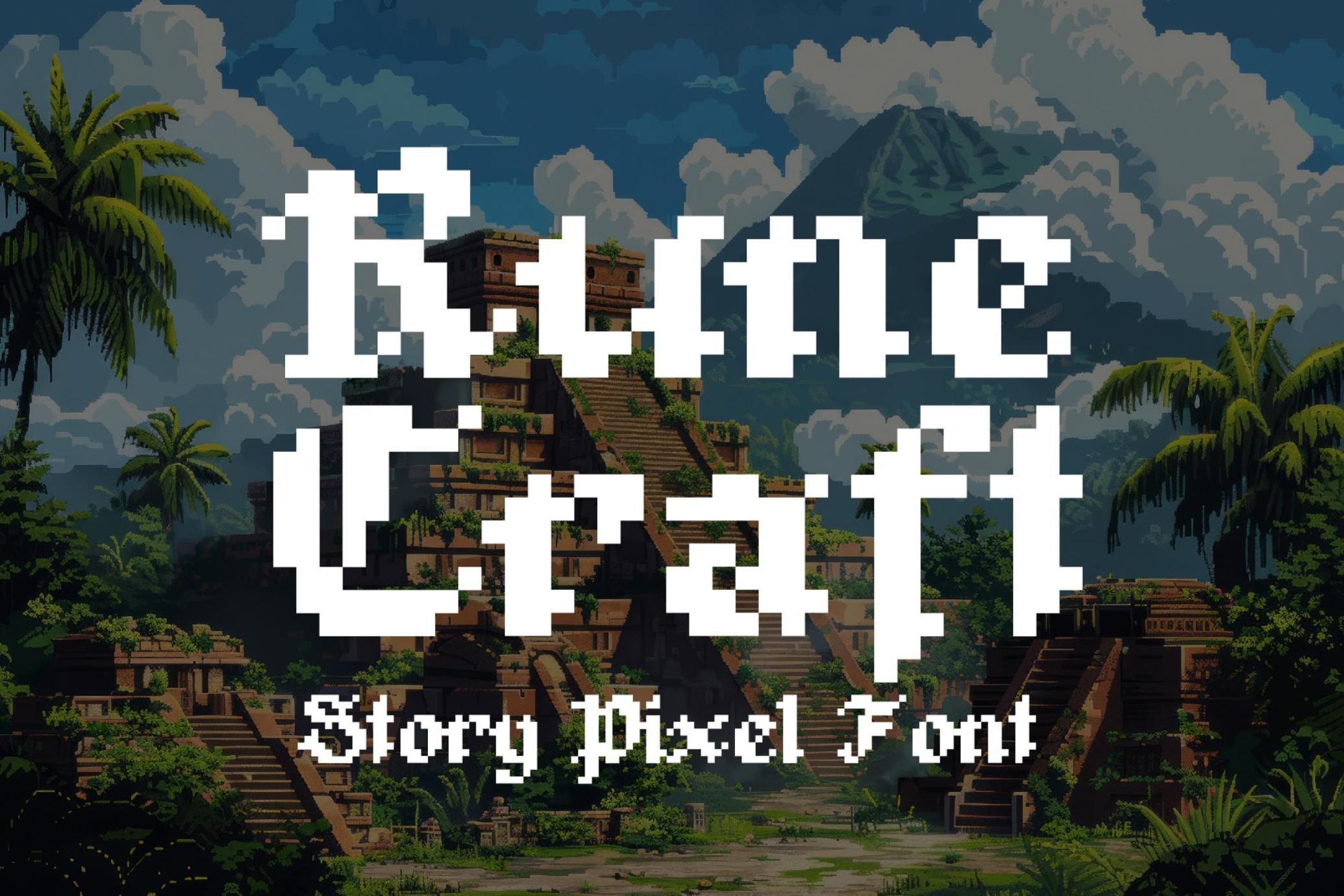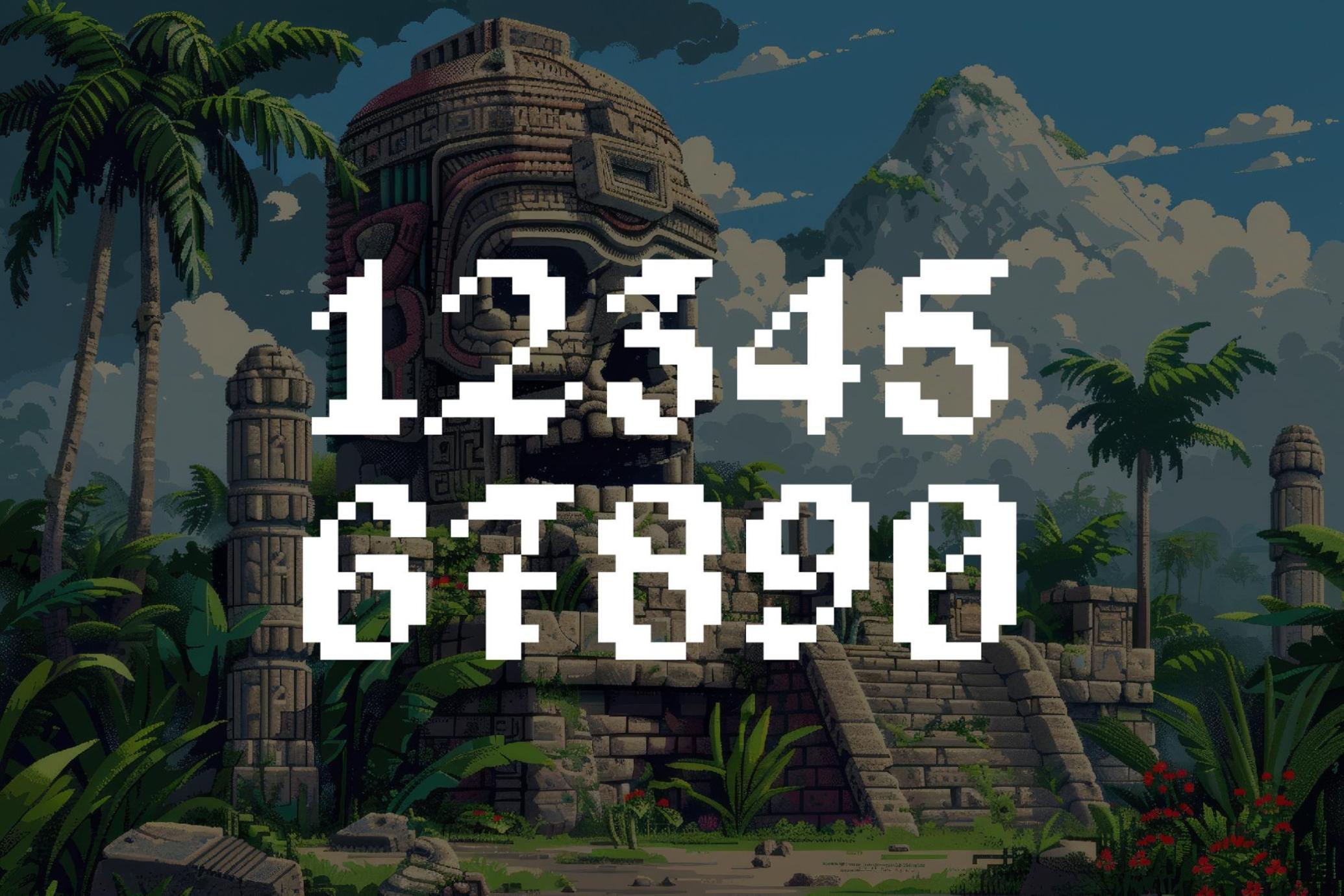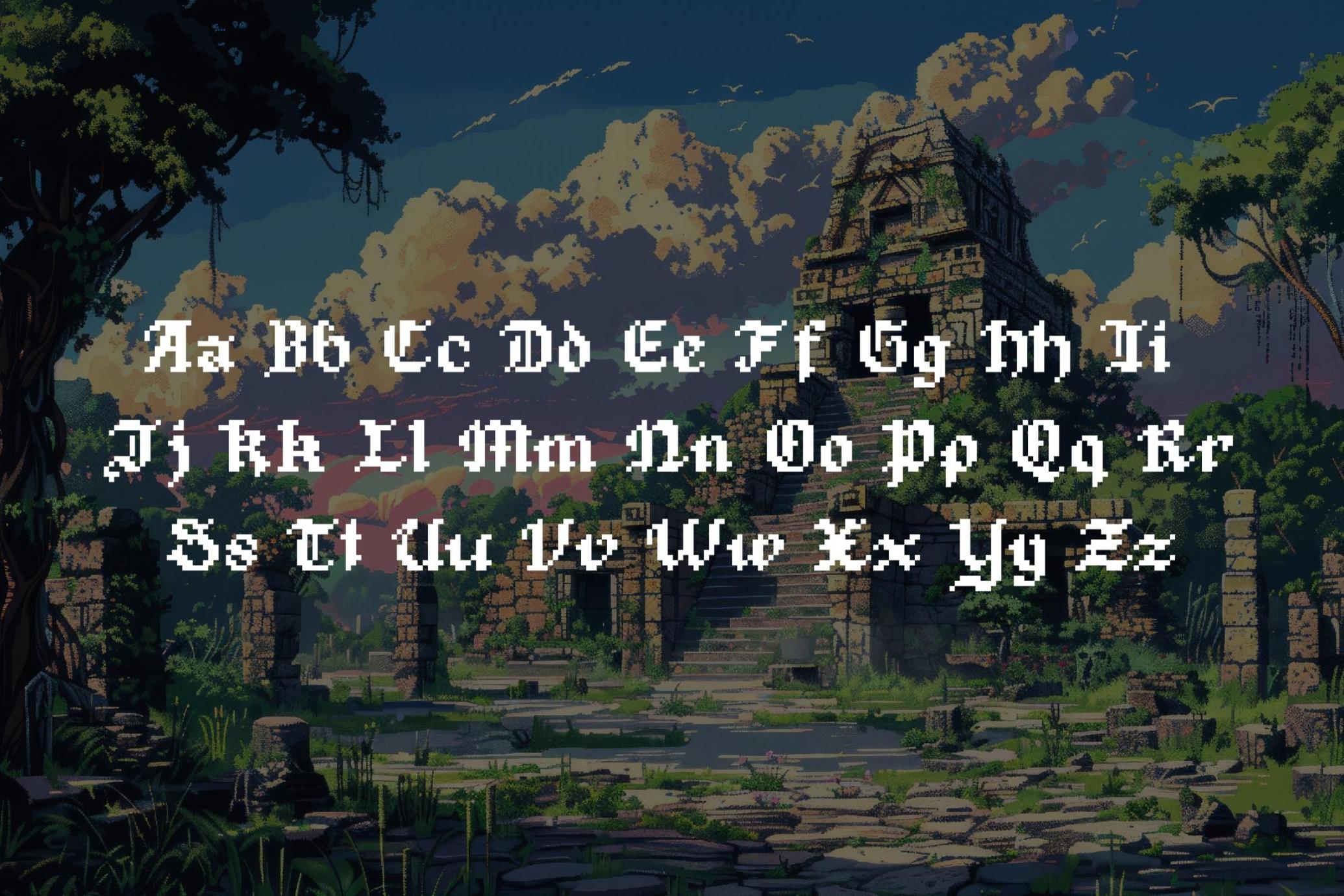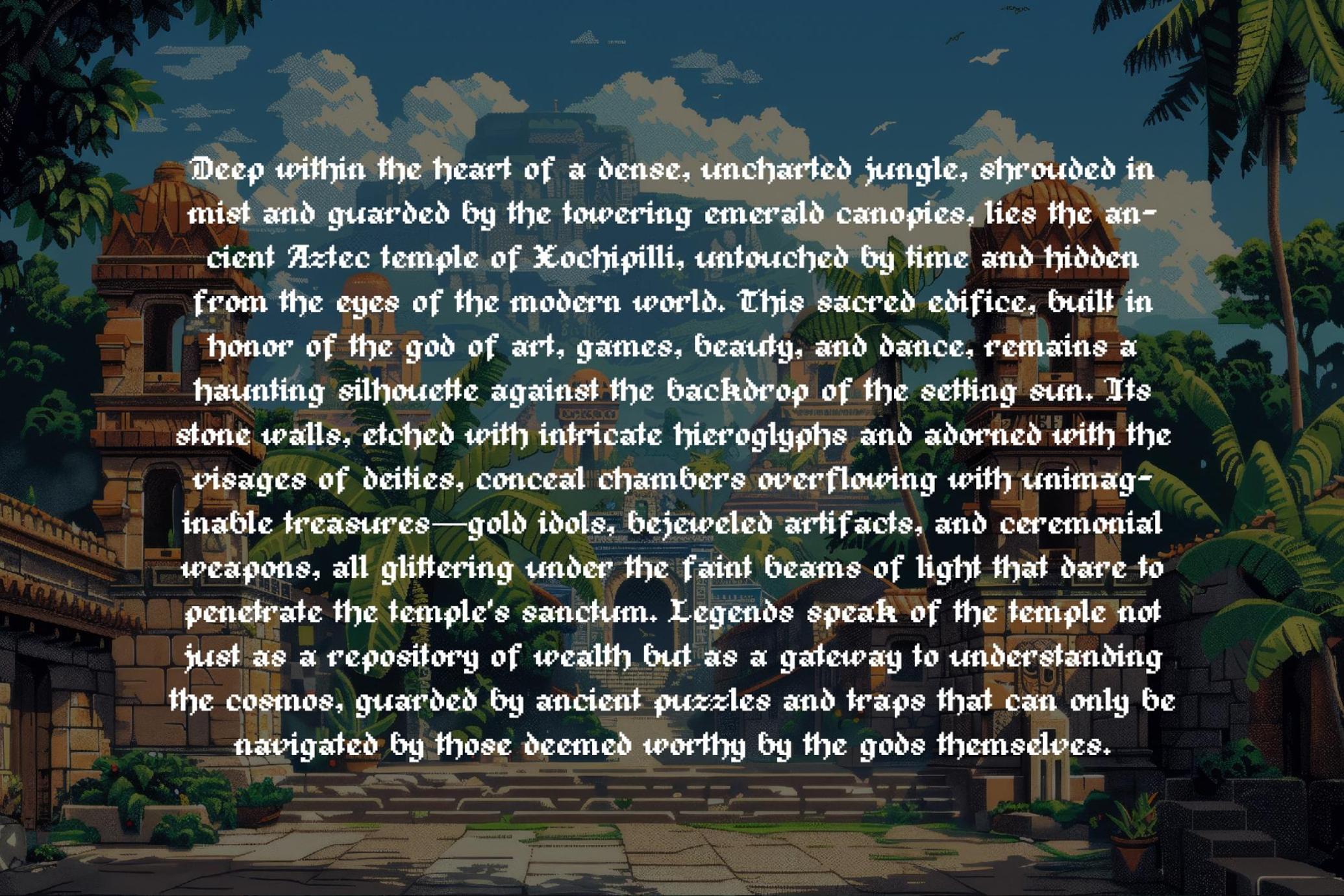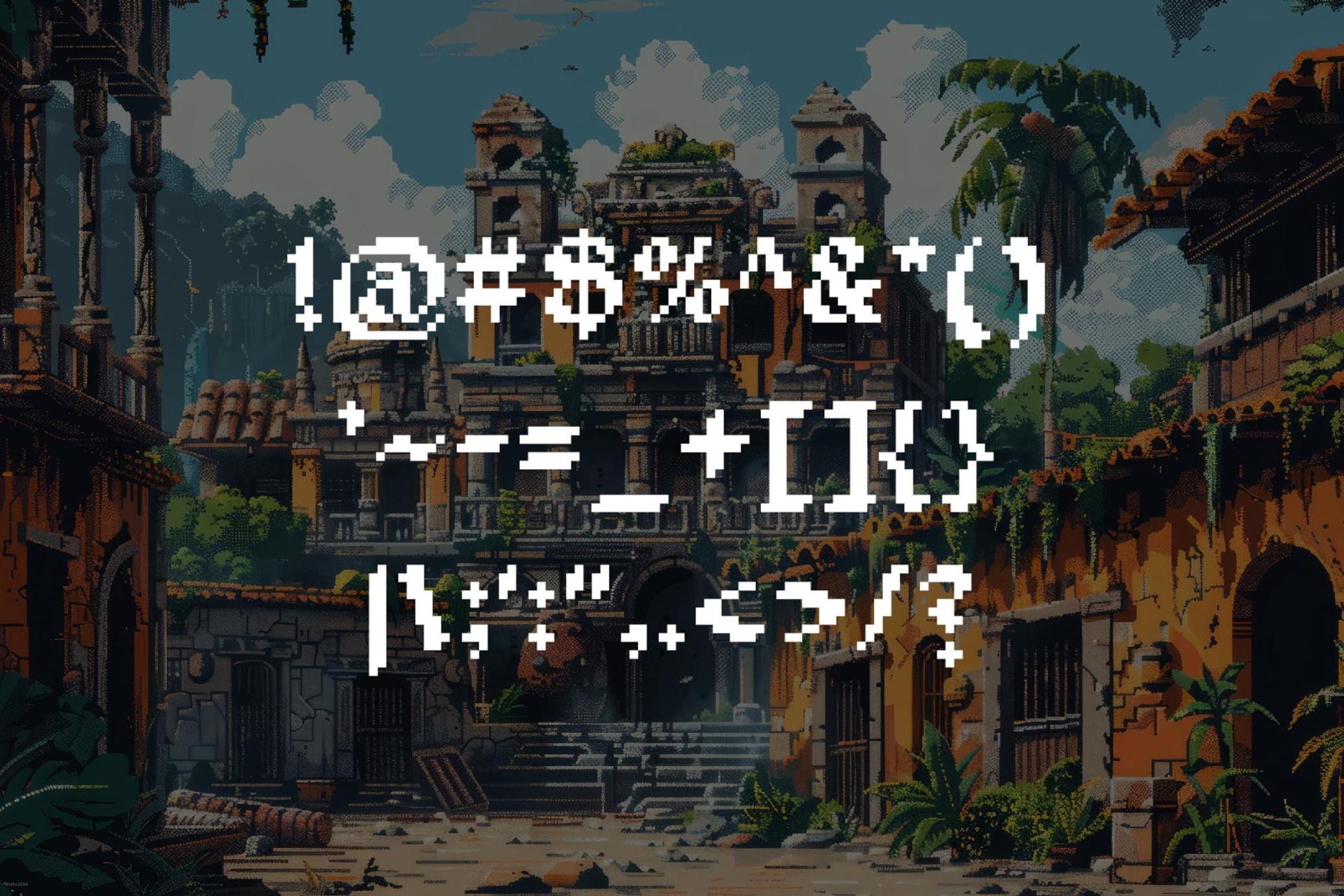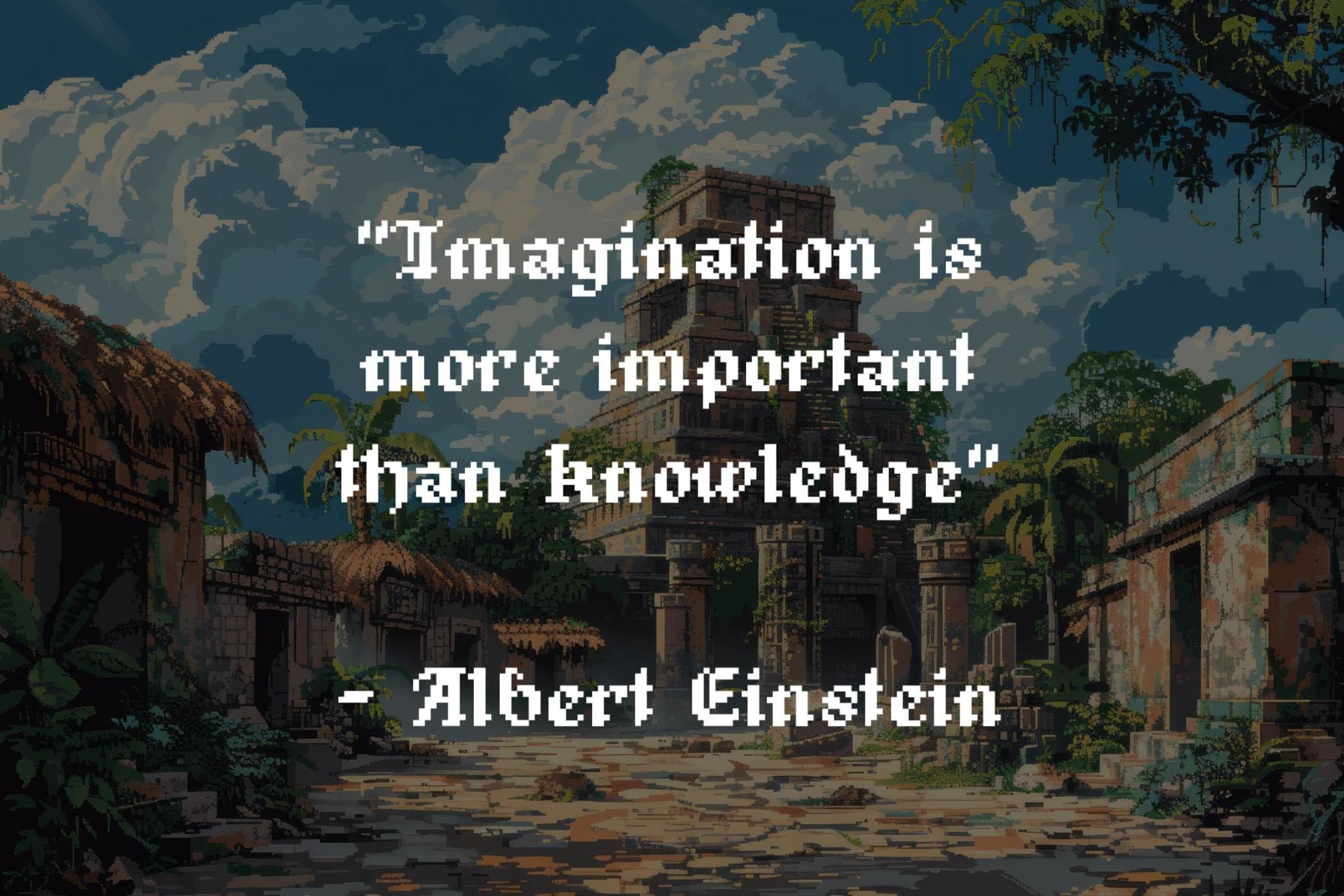
Rune Craft - Story Pixel Font
Embark on a journey through pixelated landscapes and mystical narratives with Rune Craft, the ultimate 8-bit pixel font tailored for the art of storytelling. Crafted with the essence of ancient runes and the charm of retro gaming, Rune Craft bridges the worlds of fantasy and digital artistry, making it a perfect companion for creators who wish to weave tales that captivate and enchant.
Rune Craft is not just a font; it's a portal to other worlds. Its characters, inspired by the mystique of old Norse and Celtic runes, are meticulously designed to add depth and magic to every word, turning ordinary texts into mesmerizing scripts of lore and legend. Whether you're penning a digital epic, crafting the UI for your next game, or designing a website that tells a story, Rune Craft is designed to elevate your narrative.